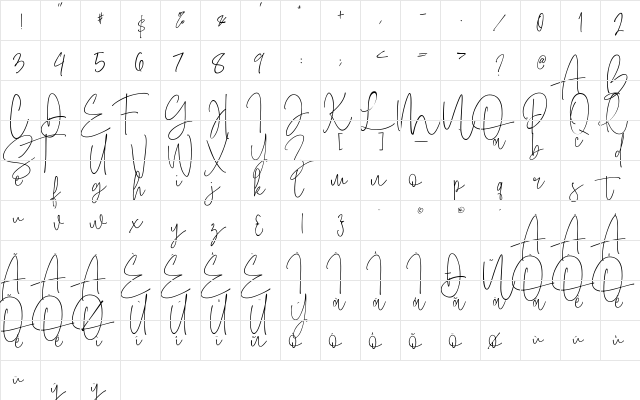
Amboera Script Regular
Design Context for Amboera Script Typeface
Amboera Script flows with the natural rhythm of handwritten lettering, making it ideal for designs that call for warmth and personal expression.
Font Pairing: Combine Amboera Script with a simple geometric sans for maximum contrast — the tension between flowing curves and clean structure is a classic typographic pairing.
Pro Tip: Use Amboera Script for short runs of text — names, titles, or taglines. Extended body copy in script faces tires the eye quickly.